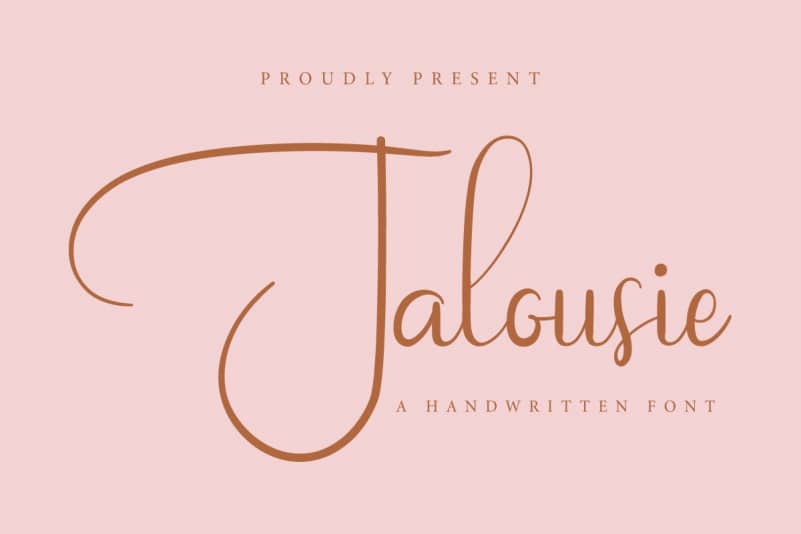
Jalousie Calligraphy Script Font
Jalousie is a calligraphy script font. The styles of this font are feminine, beautiful, luxury, glamour, modern and sophisticated brush pen.